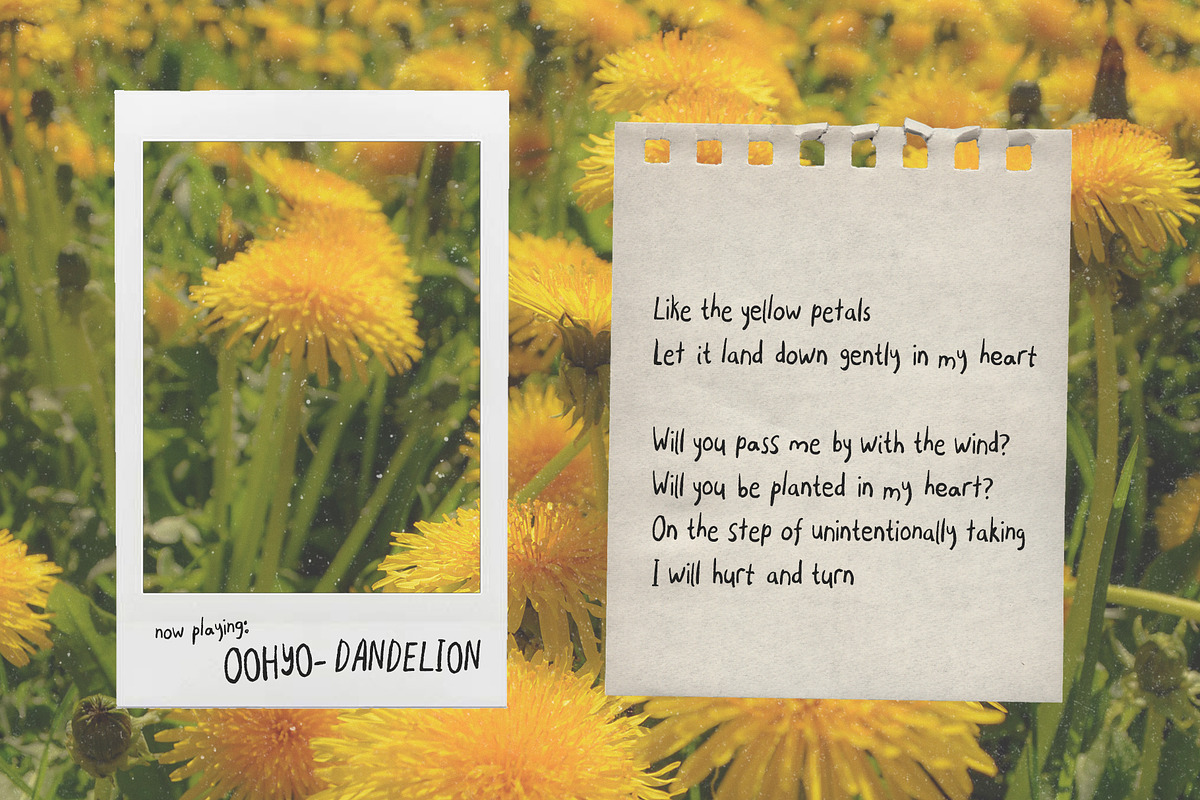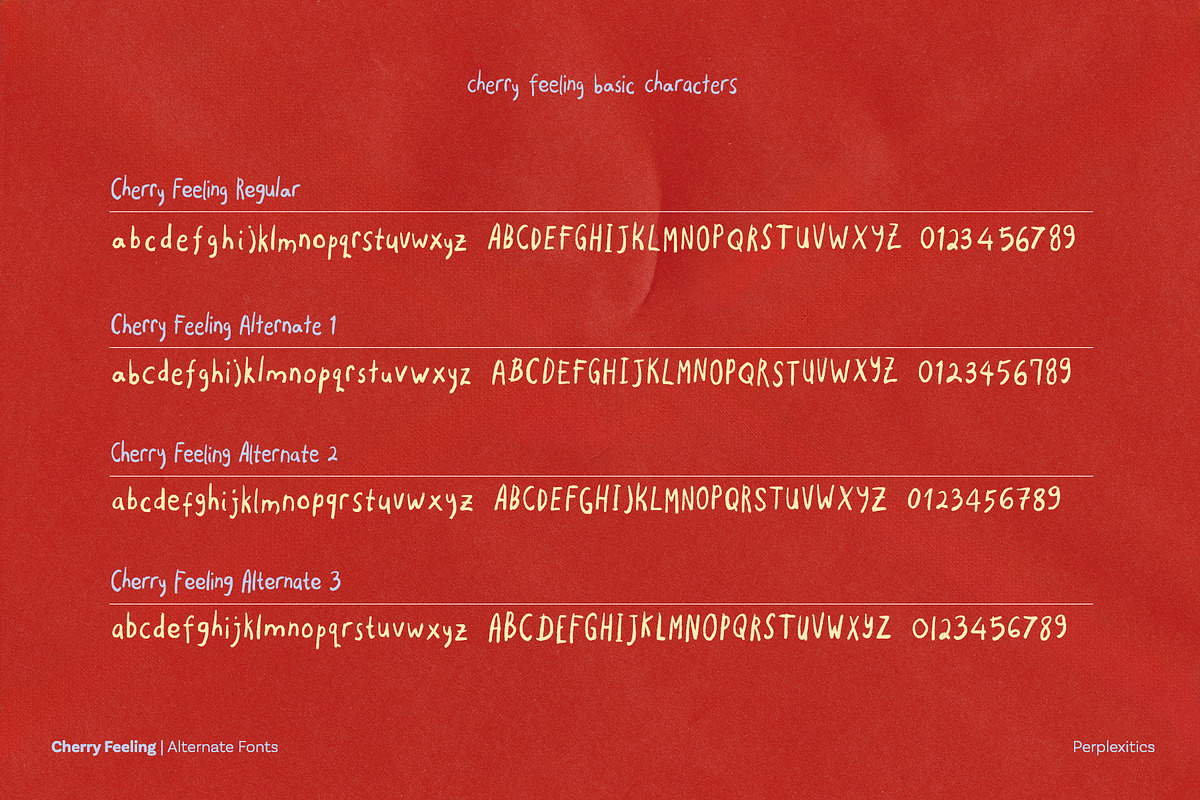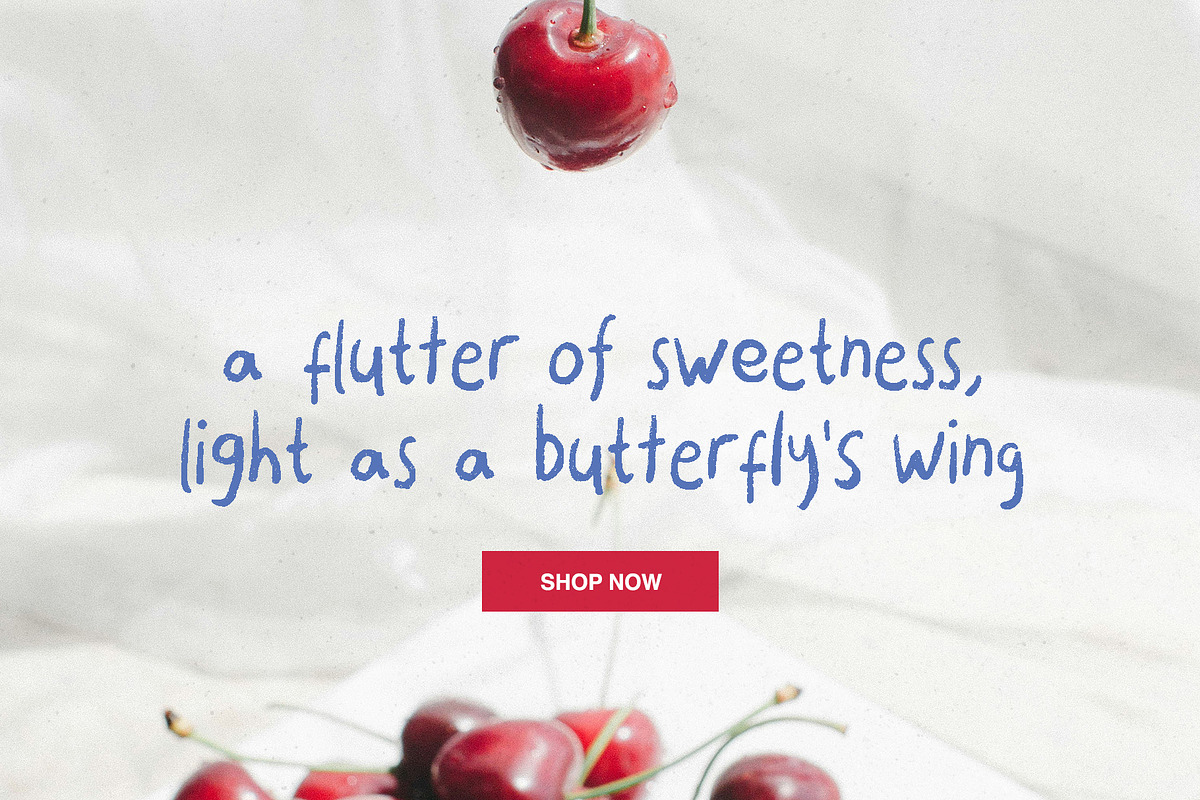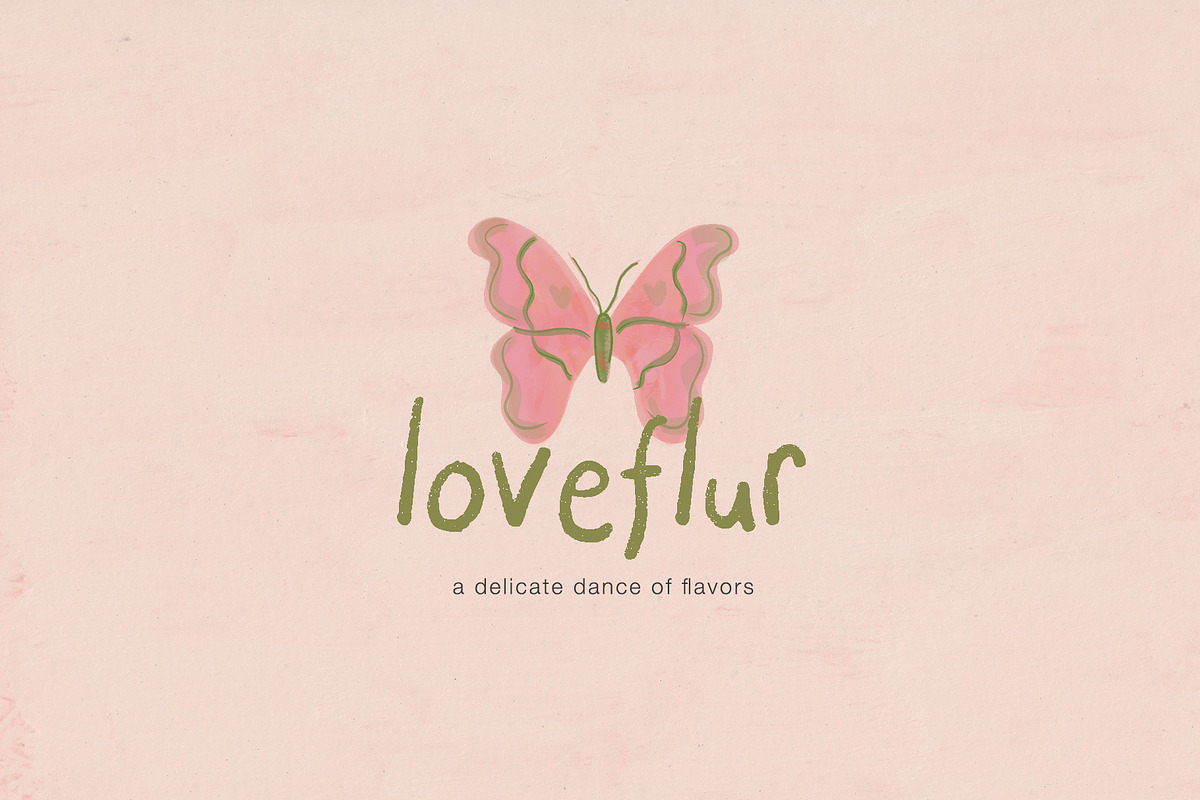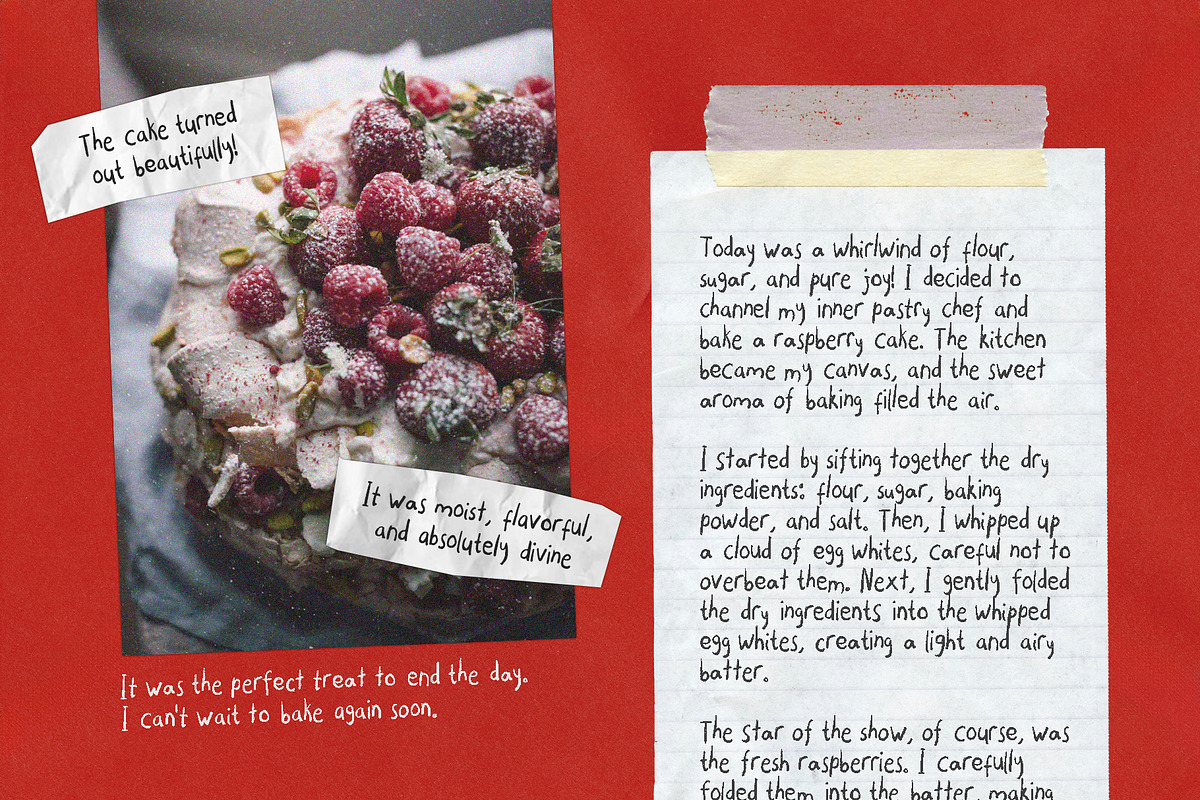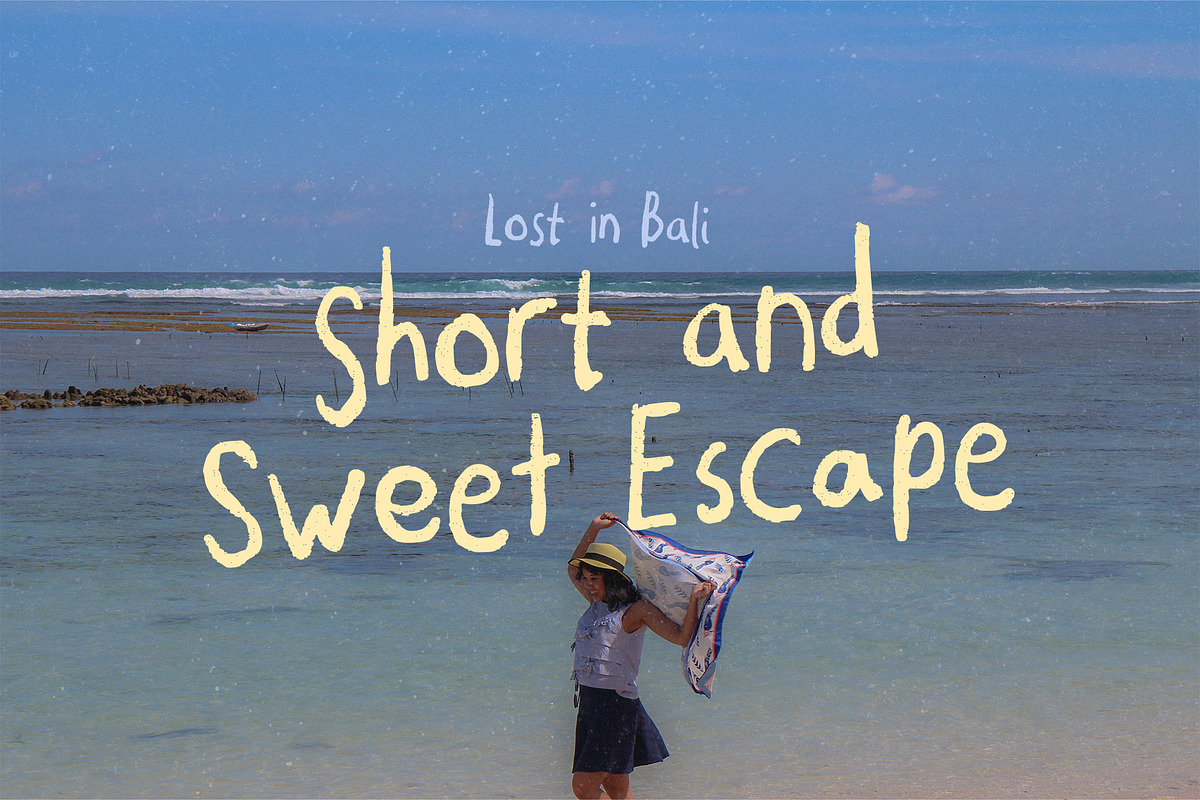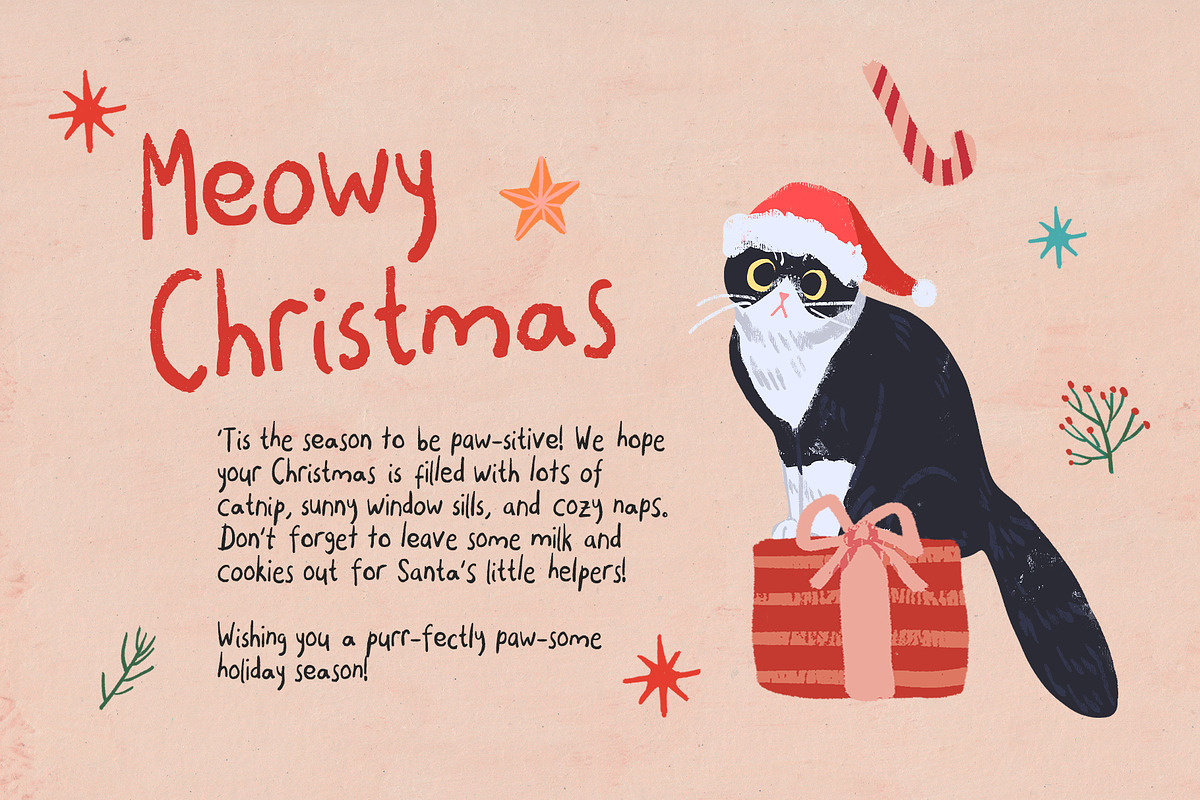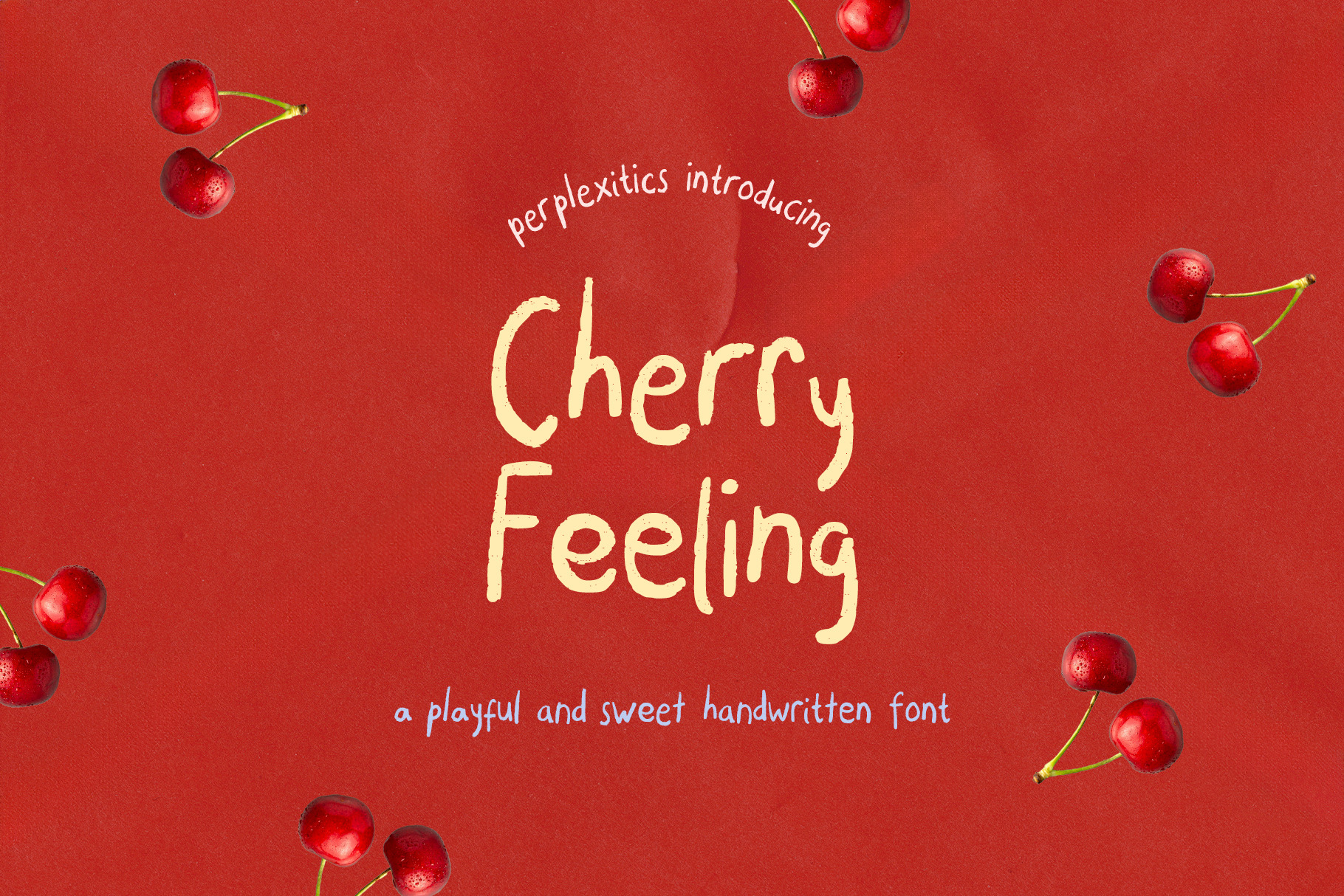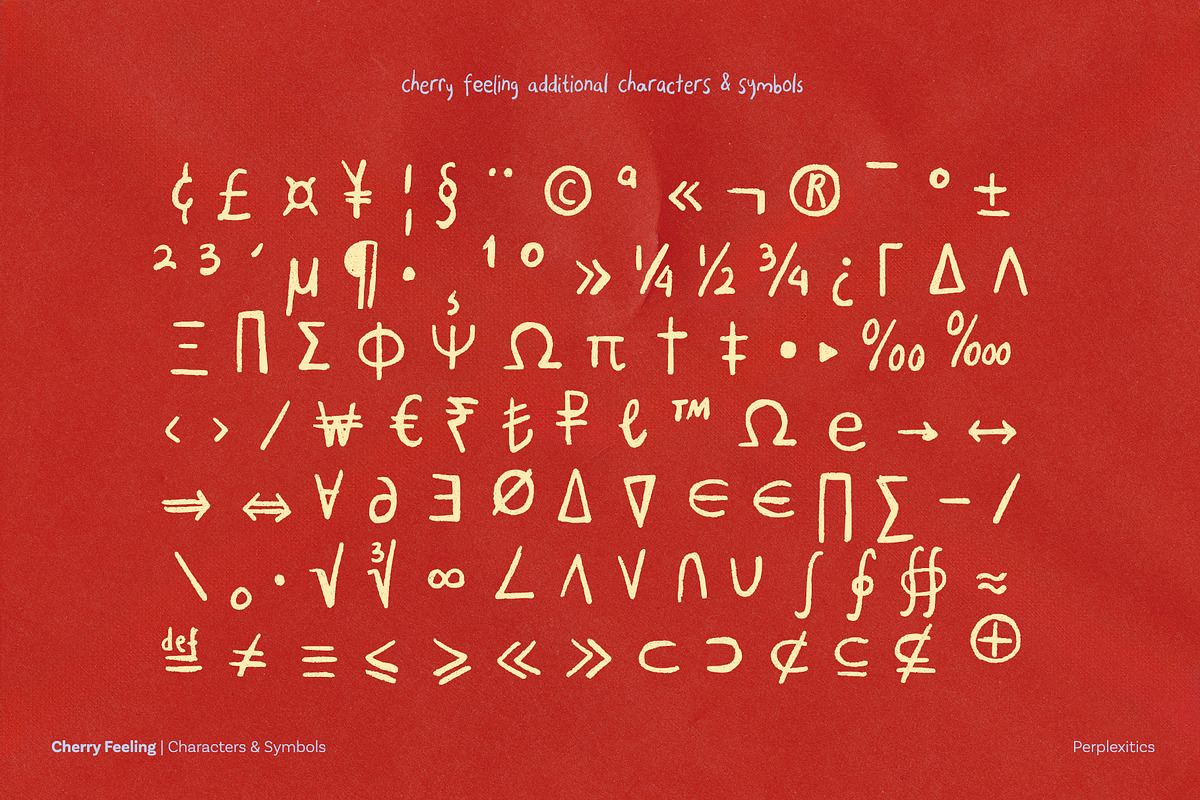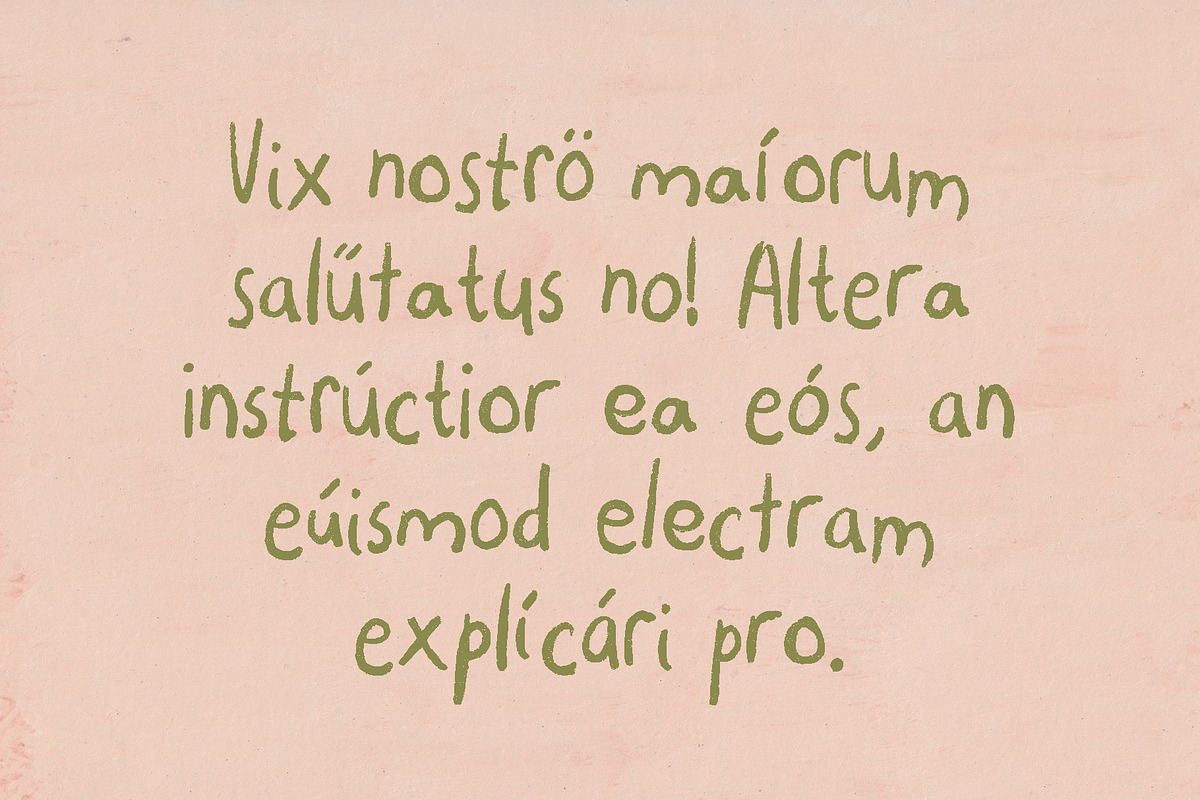
Cherry Feeling Handwritten Font
Cherry Feeling is a playful and sweet pencil handwritten font that captures the essence of sweetness, joy, and a carefree attitude.
Cherry Feeling Font is packed with everything you need, including uppercase and lowercase letters, numbers, and punctuation. Multilingual support.